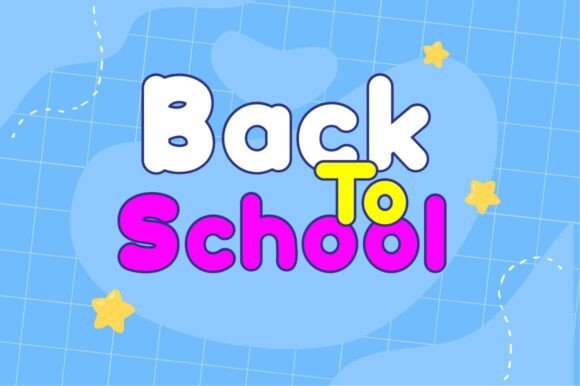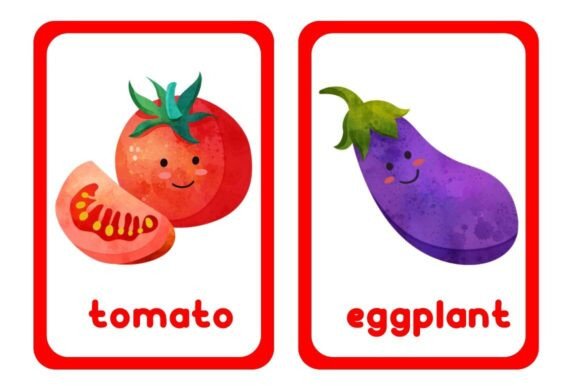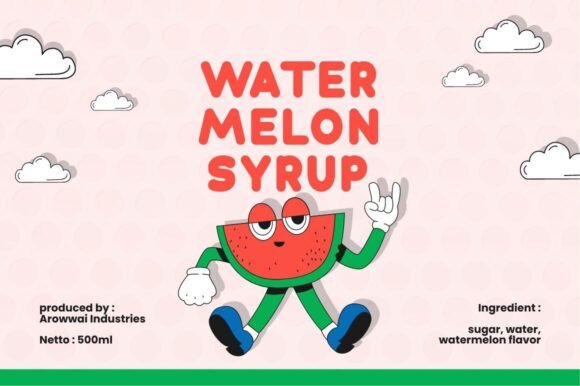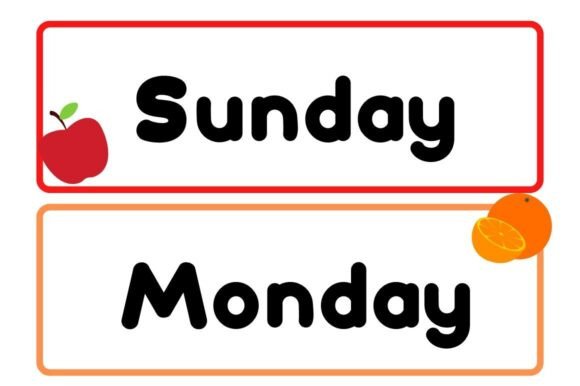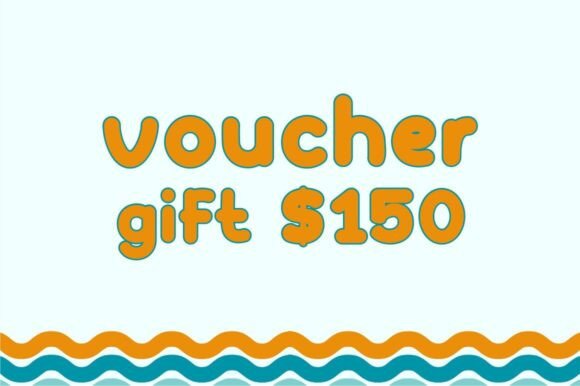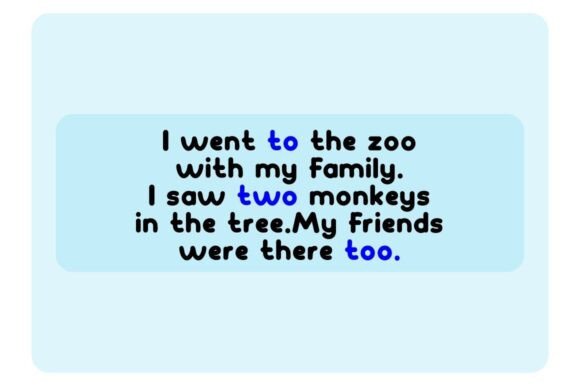
Introduction to Momonon Font
Introducing “Momonon” is a Modern Display Sans Serif typeface designed for impactful and eye-catching visuals.
It features clean lines, geometric shapes, and a balanced structure that makes it perfect for headlines, posters, and branding materials The font’s simplicity is complemented by subtle curves, adding a touch of warmth to its overall design.
Key Features of Momonon Font
Momonon Font offers exceptional quality and versatility, making it a valuable addition to your design toolkit. Whether you’re creating for personal projects or commercial use, Momonon Font delivers professional results.